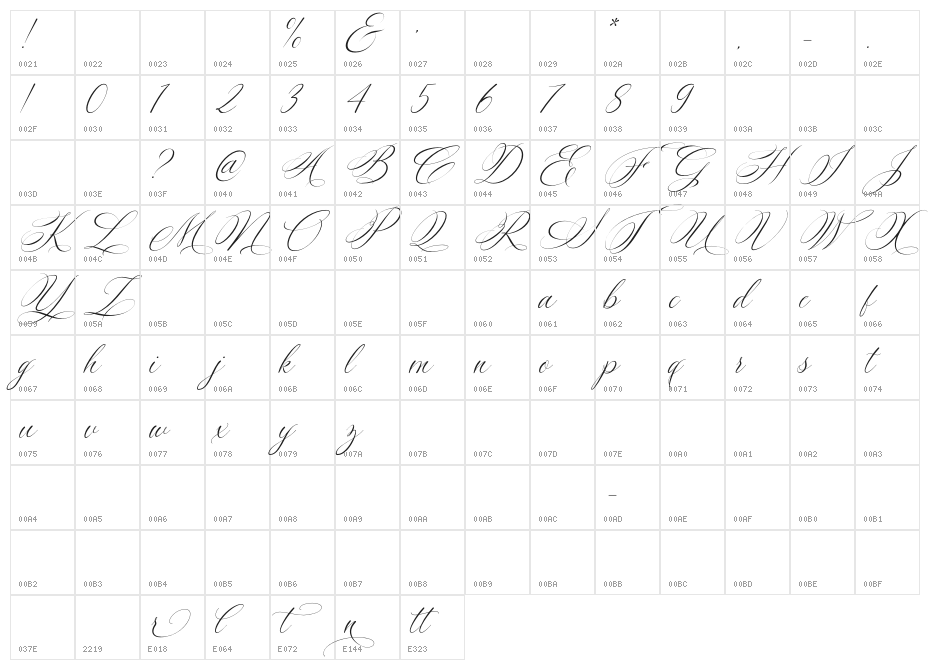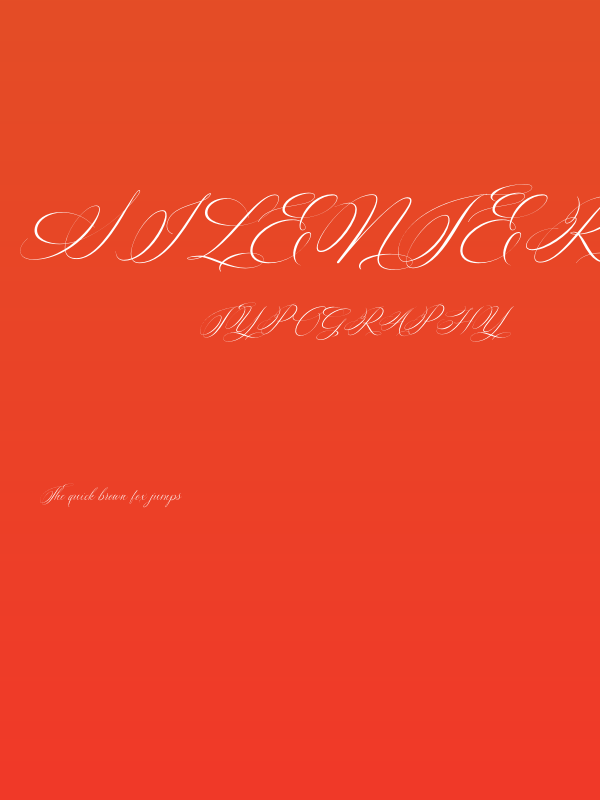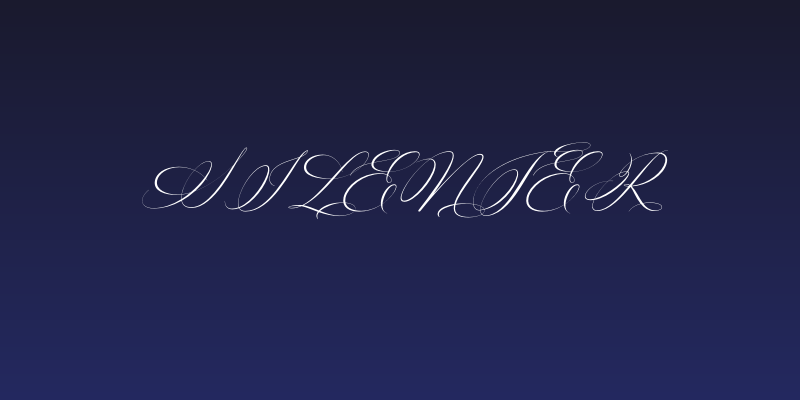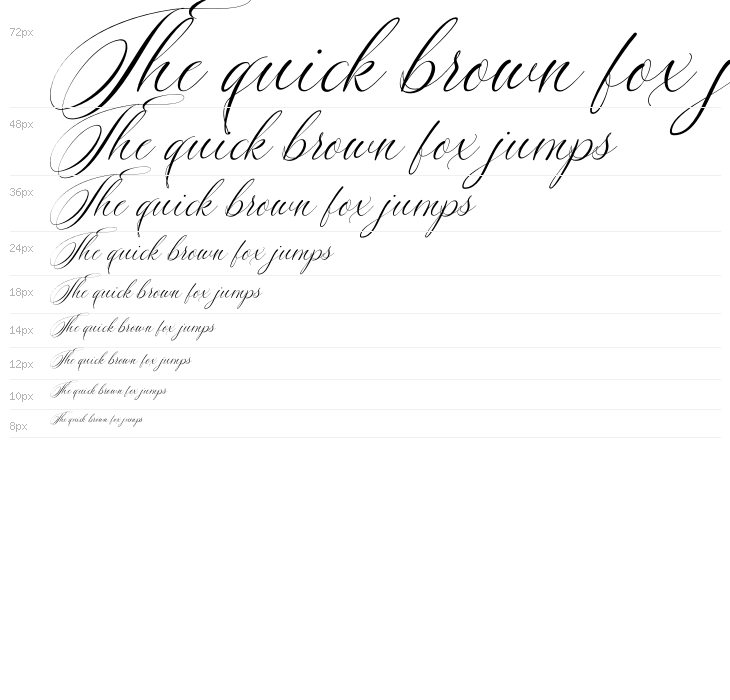
Silenter Font
| Stile generale | Elegant |
| Caso d'uso | Logos, Invitations, Decorative text |
| Progetti proposti | Ideal for wedding invitations, elegant branding, luxury product packaging, and decorative headings. |